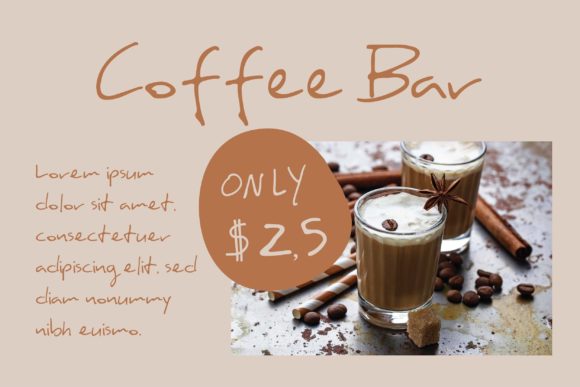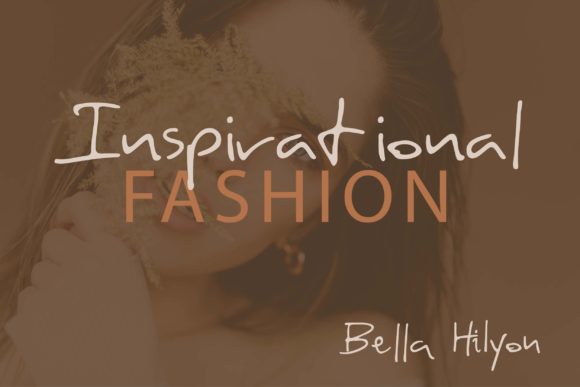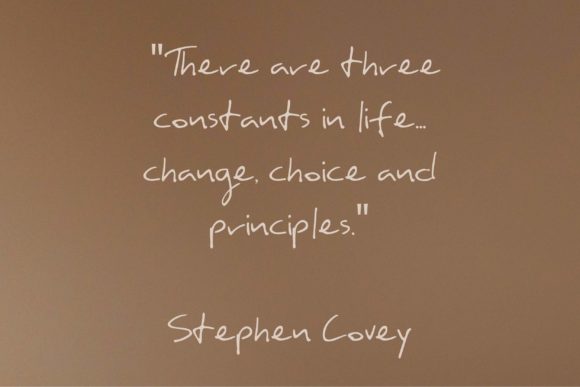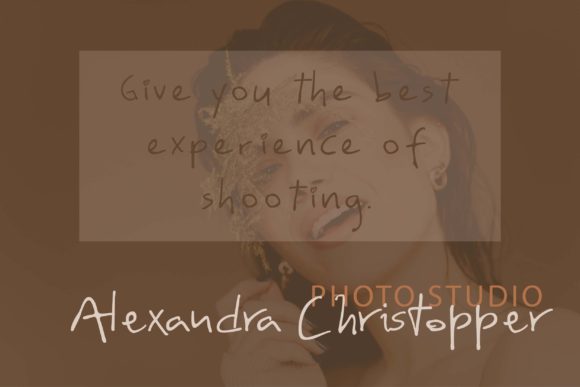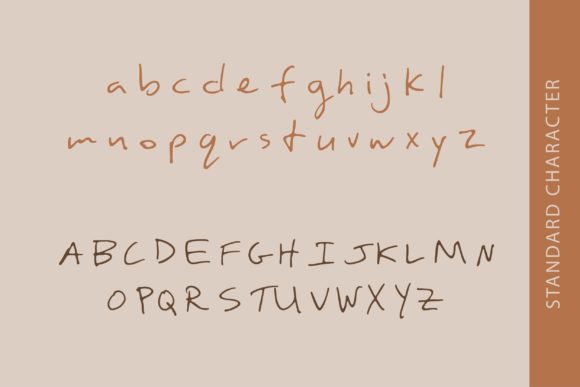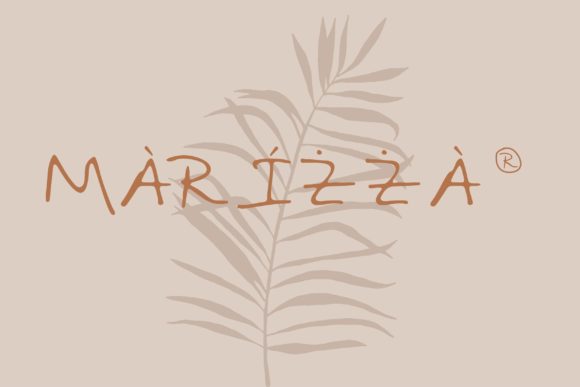
Unleashing Elegance: The Power of Arumi Twain Font
There’s nothing quite like the thrill of staring at a blank canvas, waiting for inspiration to strike. The cursor blinks, and suddenly, an idea emerges – a vision of sophistication and style that demands to be brought to life. This is where the right tools come in, and for designers, the Arumi Twain Font is a game-changer.
This chic, stylish script font is more than just a pretty face; it’s a versatile companion that can elevate any project to new heights. With its luxurious alternates and ligatures, Arumi Twain Font is the perfect match for designers seeking to create truly unforgettable designs.
Whether you’re crafting a luxury brand identity, a wedding invitation, or a high-end magazine, Arumi Twain Font is an invaluable asset that will take your designs to the next level.
Arumi Twain Font Key Features
- Font Family: Arumi Twain
- Unique Characteristics: This font features a unique blend of traditional and modern elements, with intricate details and subtle textures, making it ideal for creative and artistic projects.
Arumi Twain Font Review
Overall, I think the Arumi Twain Font is a solid choice for designers looking for a unique and elegant display font. ✨ One of the things that stands out about this font is its beautiful, flowing script. It’s perfect for titles, headings, and other text elements where you want to add a touch of sophistication.
- Beautiful, flowing script ✨
- Perfect for titles, headings, and other display text
- Supports both Latin and Cyrillic character sets
However, there are some limitations to consider. ⚠️ One of the main issues is that the font is not as versatile as some other display fonts on the market. It’s primarily designed for titles and headings, and it may not be the best choice for body text. Additionally, the font is quite ornate, which can make it difficult to read at smaller font sizes.
- Not as versatile as other display fonts ⚠️
- May not be the best choice for body text
- Can be difficult to read at smaller font sizes
Overall, I think the Arumi Twain Font is a great choice for designers who want to add a touch of elegance to their designs. However, it’s not the best choice for every project, and designers should carefully consider the limitations before using it.
Getting the Most Out of Arumi Twain Font
Here are some tips to get the most out of Arumi Twain Font:
- Use it for creative projects, such as typography-based designs, posters, and infographics.
- Combine it with other fonts for a unique and stylish look.
- Experiment with different font sizes, colors, and styles to create a visually appealing design.
Here are some common use cases for Arumi Twain Font:
Great Vibes is a modern and elegant script font, perfect for creating a sense of sophistication and luxury. It is ideal for use in fashion and lifestyle brands, as well as for creating a sense of exclusivity. When to use: Headlines, titles, and special occasions. Compared to Arumi Twain Font: Great Vibes has a more modern and trendy feel, whereas Arumi Twain Font has a more classic and timeless touch.
Yes, Arumi Twain supports a wide range of languages, including Latin, Cyrillic, and Greek scripts. This makes it an ideal choice for designers working on projects that require multiple language support.